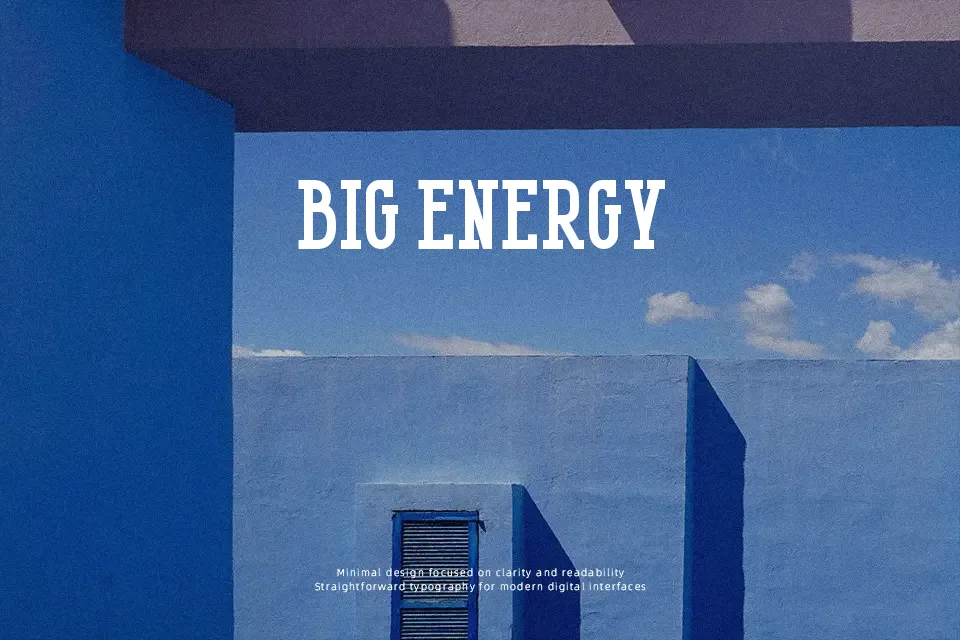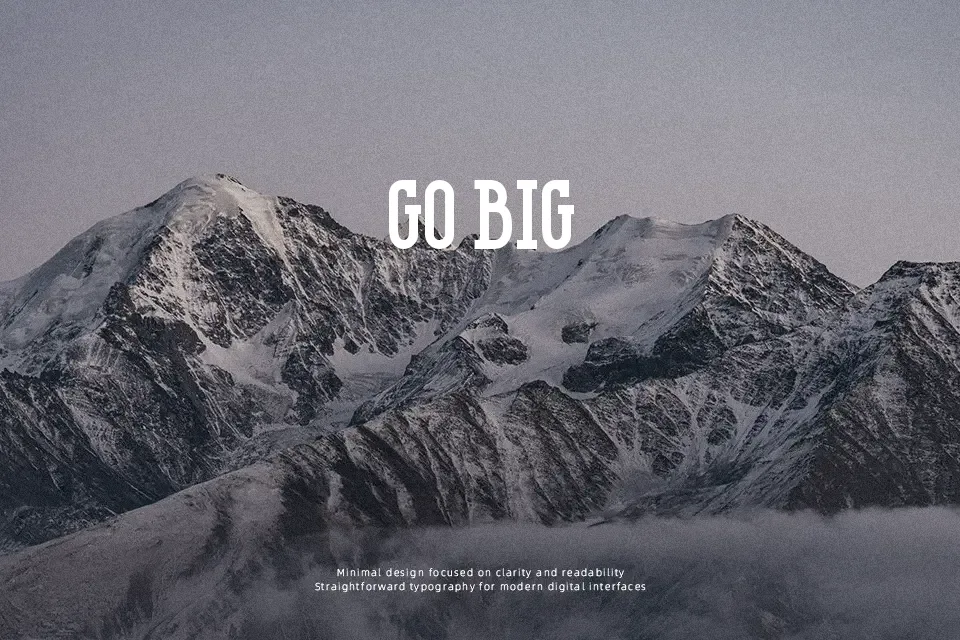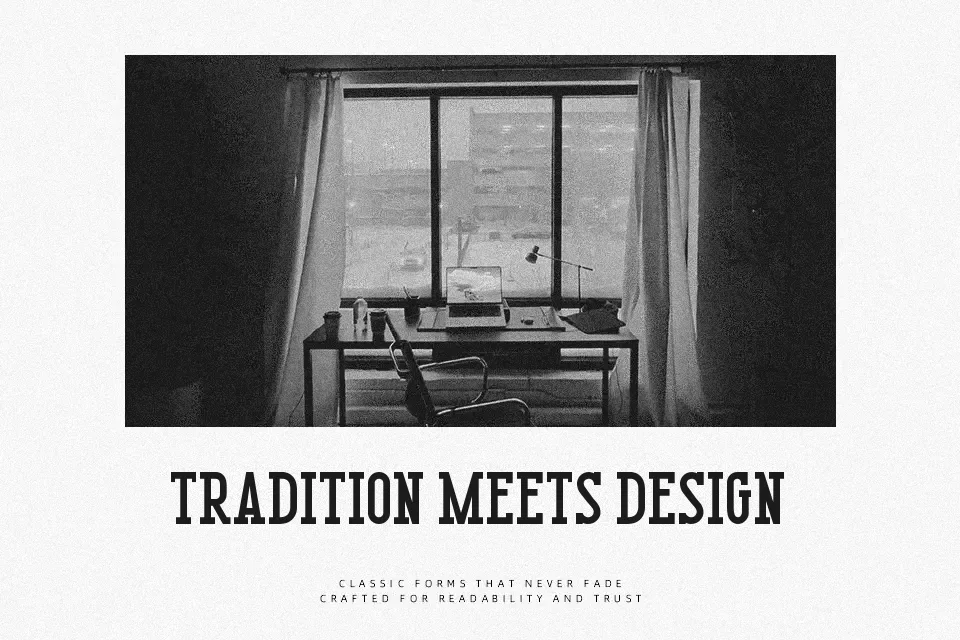
Sportation Font
A high-impact athletic banner or collegiate merchandise label benefits significantly from Sportation Font, which combines robust slab-like serifs with disciplined rectangular character geometry. The typeface features solid, uniform stroke weights, generous inner counters, and moderately open letter spacing that prevent dense letter clustering. Uppercase forms exhibit steady horizontal alignments, making titles immediately recognizable from a distance. However, the thick serifs and prominent weight reduce legibility when scaled down to small captions or body text. While the design provides exceptional punch for sports identity systems and bold display headers, it remains less practical for continuous reading layouts where lighter textures are required.
Best For: collegiate athletic apparel,varsity sports posters,sports team logos,event merchandise branding
Not Ideal For: continuous body text,dense editorial paragraphs,small user interface labels,mobile app captions